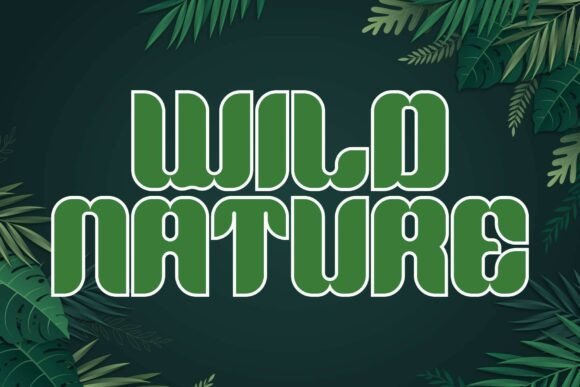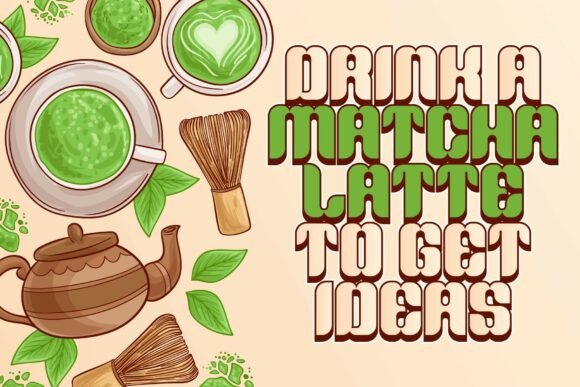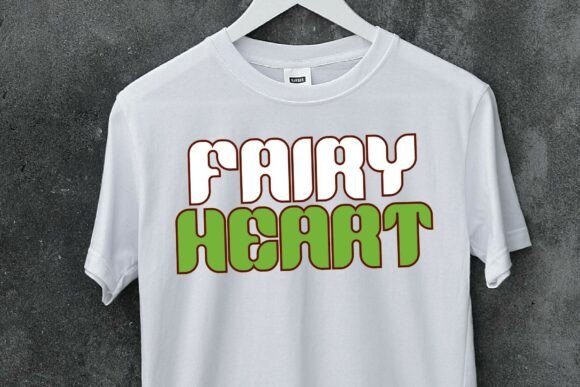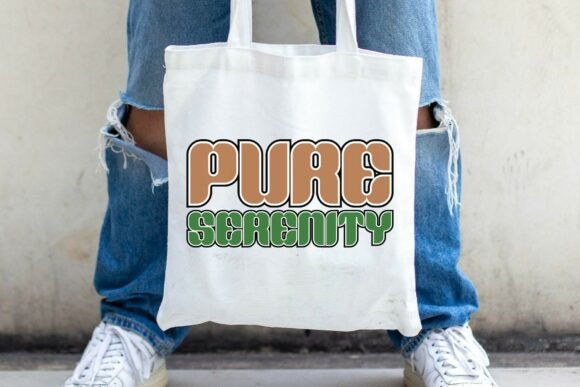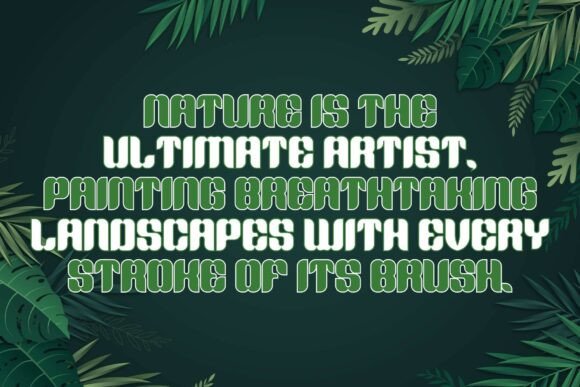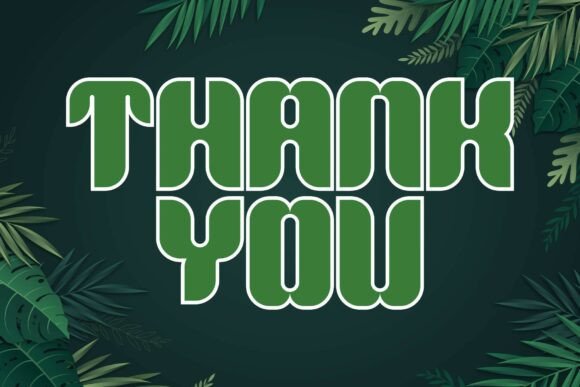
Introducing Green Leaves Font: The Ultimate Retro Display Font for Creative Projects
Are you tired of using the same old fonts for your creative projects? Do you want to add a touch of playfulness and style to your designs? Look no further than the Green Leaves Font! This versatile, stylish, groovy, and playful retro display font is perfect for a wide spectrum of applications, from greeting cards to headlines, and more. In this article, we’ll dive into the features and benefits of Green Leaves Font, and explore how it can elevate your designs to the next level.
What is Green Leaves Font?
Green Leaves Font is a unique and eye-catching retro display font that is sure to make your creative projects stand out from the crowd. With its playful and groovy vibe, this font is perfect for designers and crafters who want to add a touch of nostalgia and whimsy to their designs. Whether you’re working on a greeting card, headline, or any other project, Green Leaves Font is the perfect choice.
Key Features of Green Leaves Font
- Versatile: Green Leaves Font is a versatile font that can be used for a wide range of applications, from digital designs to print materials.
- Stylish: With its unique and stylish design, Green Leaves Font is sure to add a touch of elegance and sophistication to your projects.
- Groovy: This font has a playful and groovy vibe that’s perfect for designers and crafters who want to add a touch of nostalgia to their designs.
- Playful: Green Leaves Font is a playful font that’s perfect for projects that require a lighthearted and fun touch.
- Retro: This font has a retro feel that’s perfect for designers and crafters who want to create designs that are reminiscent of the past.
Benefits of Using Green Leaves Font
So why should you choose Green Leaves Font for your creative projects? Here are just a few benefits of using this amazing font:
- Adds Visual Interest: Green Leaves Font is a unique and eye-catching font that’s sure to add visual interest to your designs.
- Perfect for Headlines: With its bold and playful design, Green Leaves Font is perfect for headlines and titles.
- Great for Greeting Cards: This font is perfect for greeting cards, invitations, and other paper crafts.
Tips and Tricks for Getting the Most out of Green Leaves Font
Here are a few tips and tricks for getting the most out of Green Leaves Font:
- Experiment with Different Sizes: Green Leaves Font looks great in a range of sizes, from small and delicate to large and bold.
- Pair with Other Fonts: This font pairs well with a range of other fonts, including sans-serif and script fonts.
- Use for Headlines and Titles: Green Leaves Font is perfect for headlines and titles, but it can also be used for body text and other design elements.
- Add a Pop of Color: Green Leaves Font looks great in a range of colors, so don’t be afraid to add a pop of color to your designs.